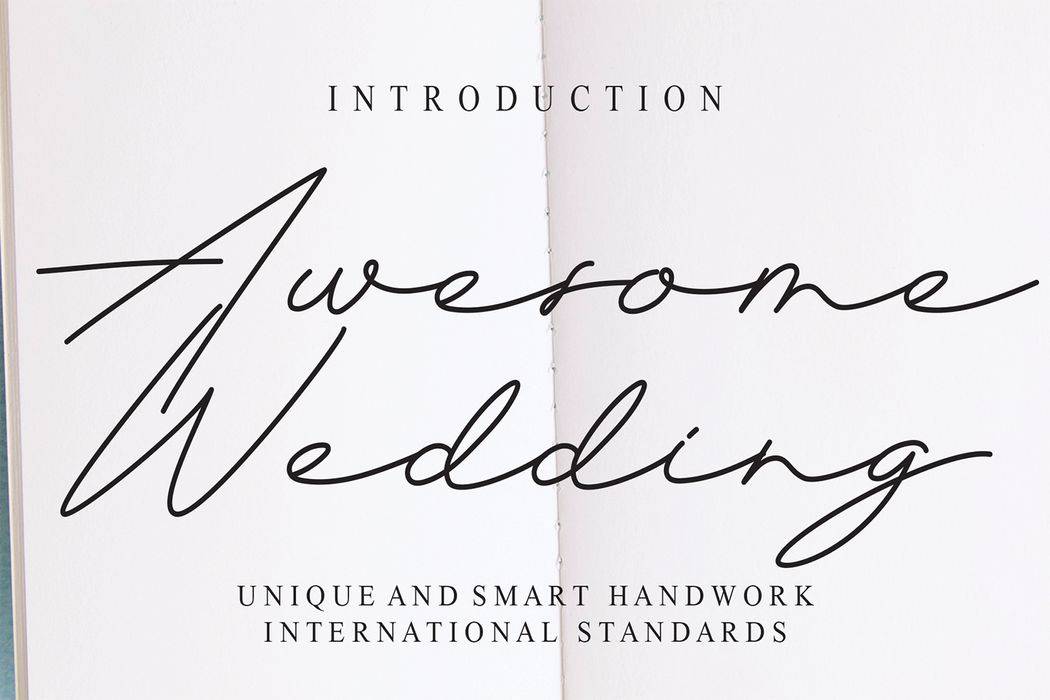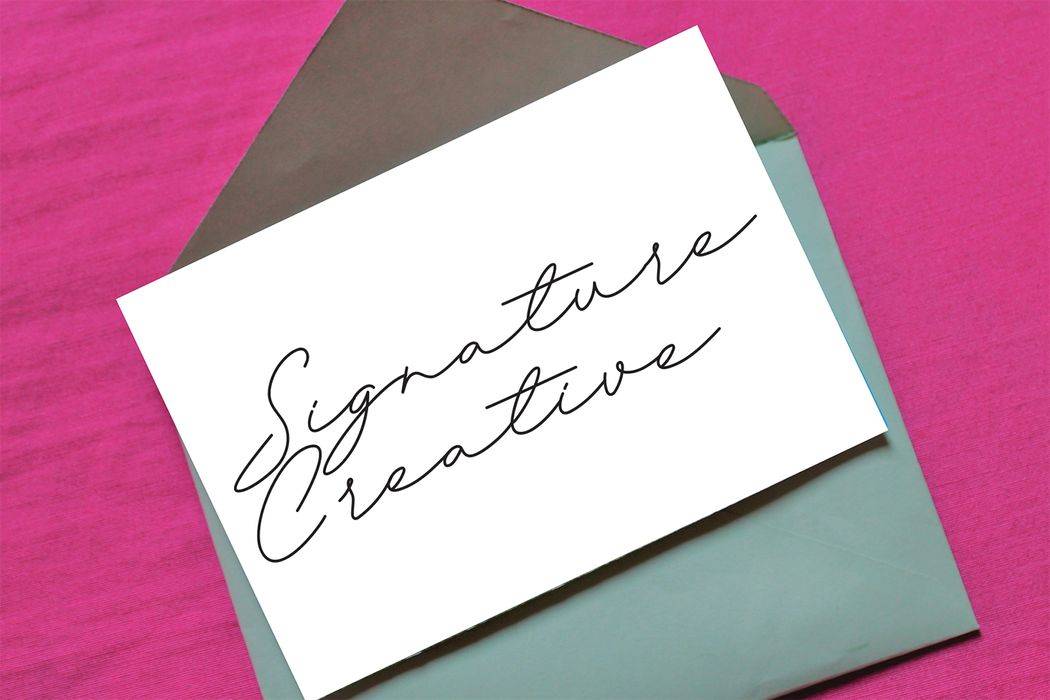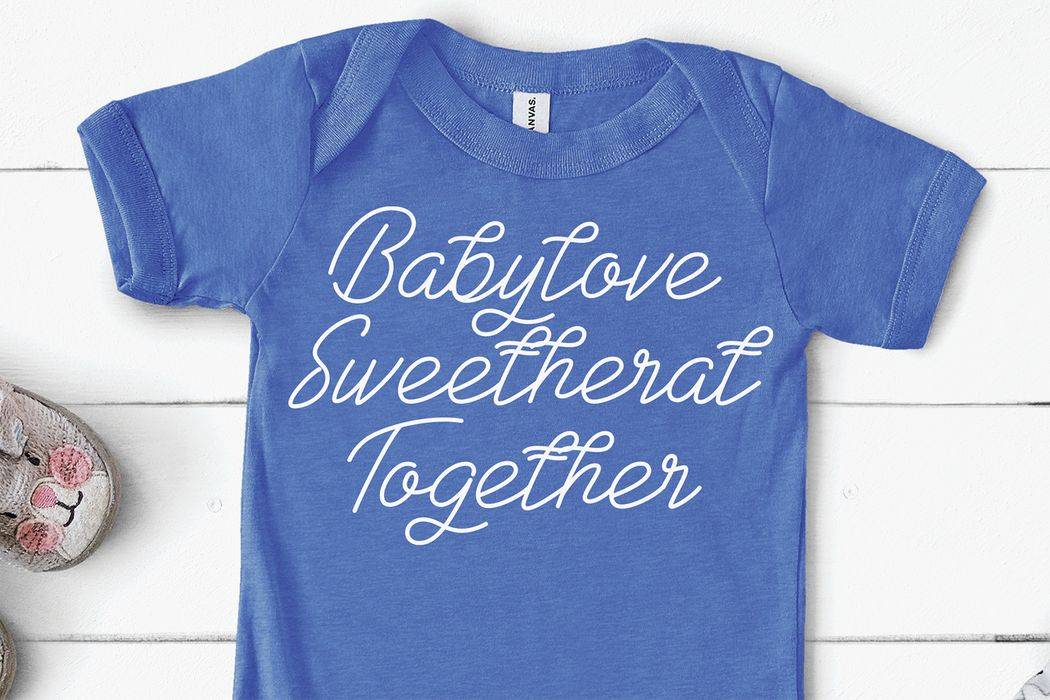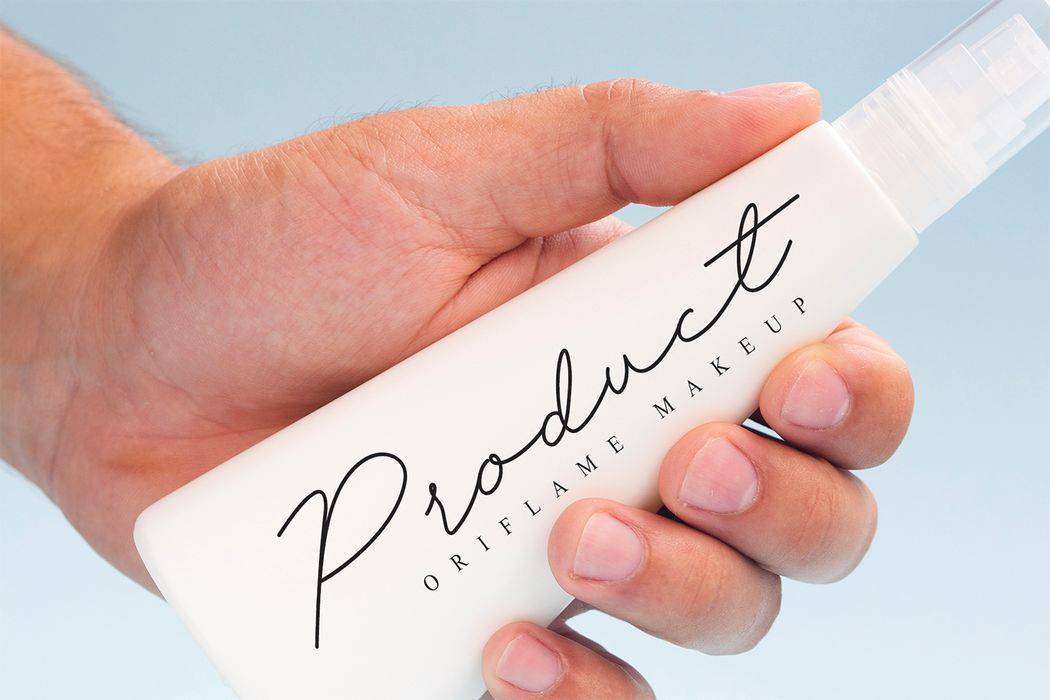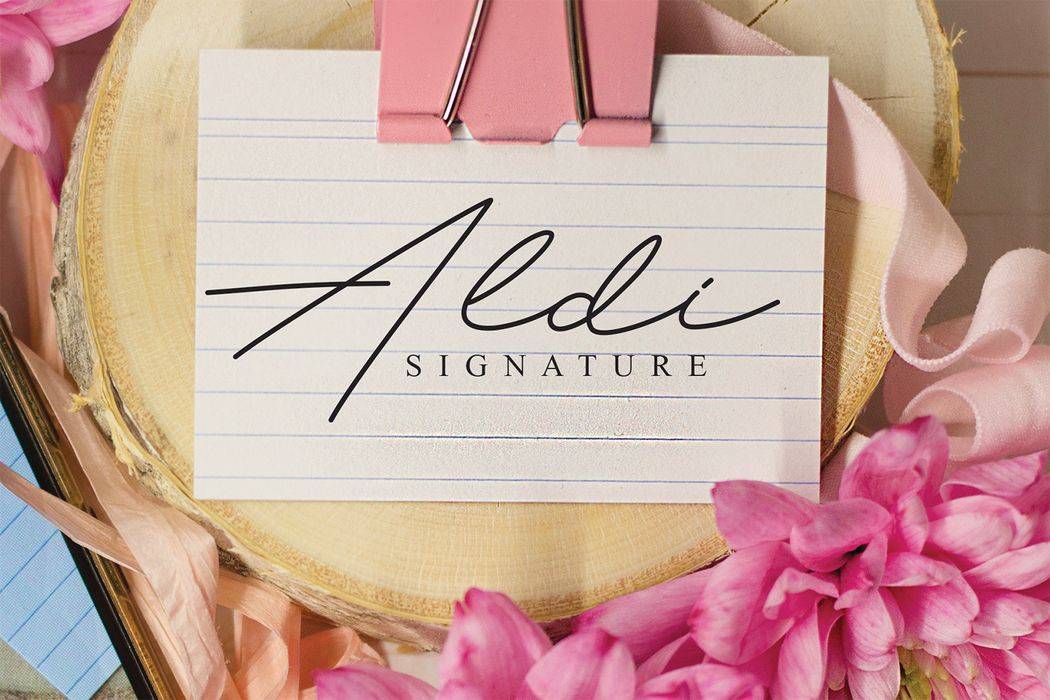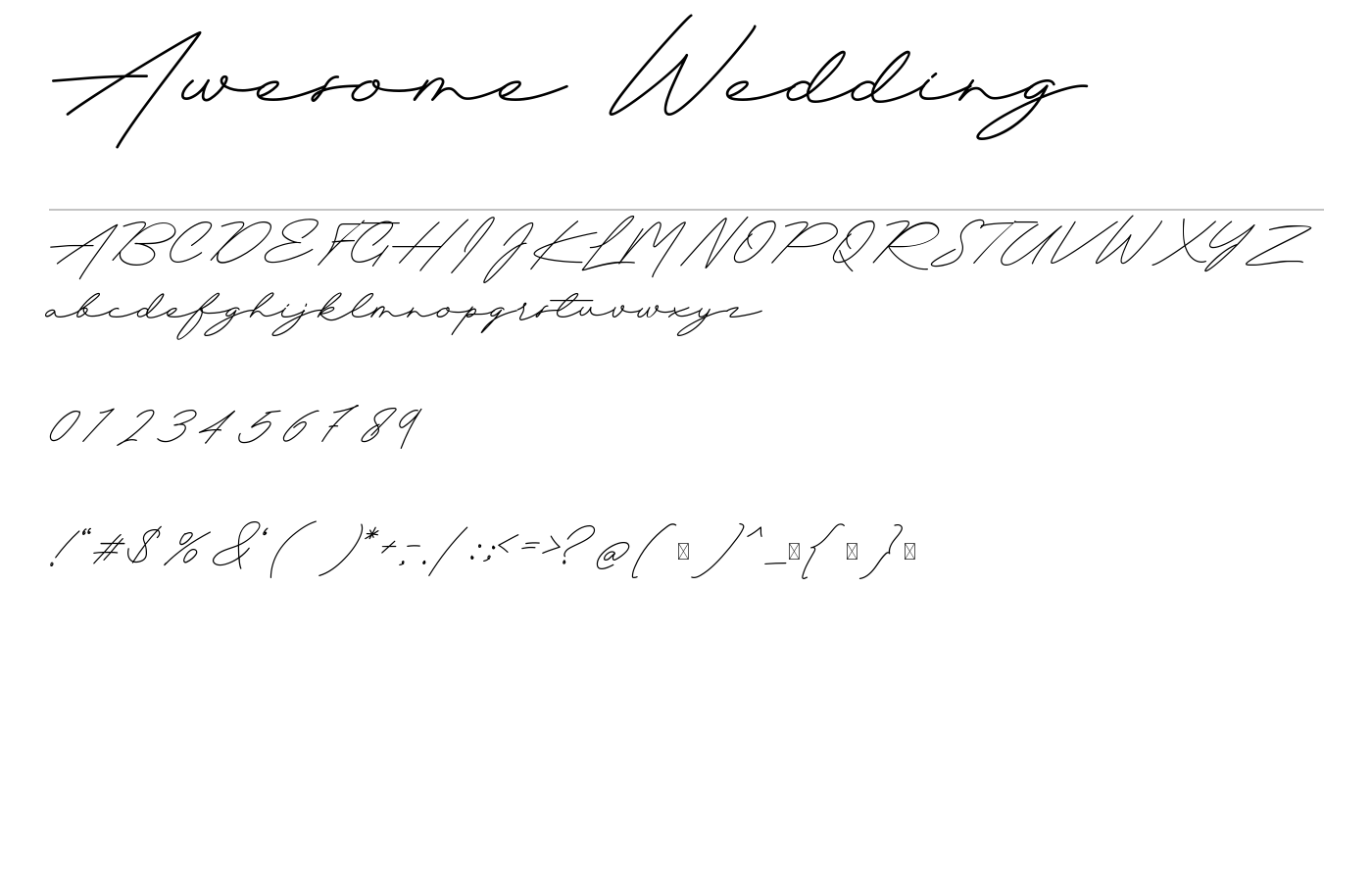
Awesome Wedding Font is a delicate, elegant script with fine, flowing strokes that mimic natural handwriting, making it perfect for romantic and sophisticated designs. Its light weight and airy spacing give it a graceful, stylish feel ideal for wedding invitations, luxury branding, and refined editorial uses where a personal, elegant touch is desired.
Awesome Wedding Font
About Awesome Wedding Font